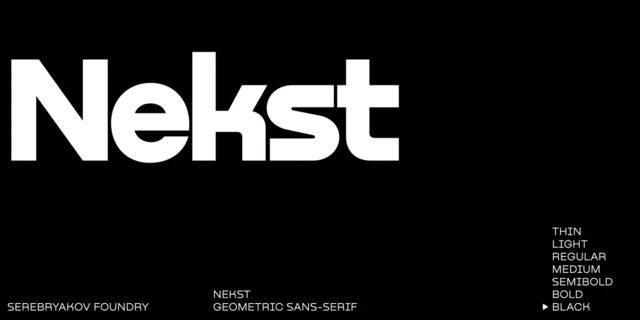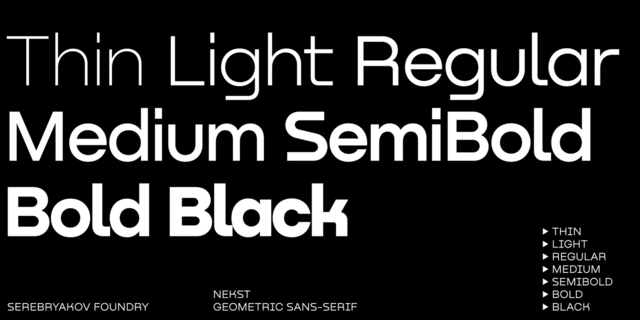
Nekst is geometric sans-serif. So it can only seem at first glance. Non-standard forms of some letters, behave unexpectedly and eccentric in a text line. These forms add notes of old grotesques and futuristic aesthetics to the modern-nordic image. Nekst font family includes seven weights supporting Cyrillic and extended Latin. The typeface was designed by Denis Serebryakov in 2020.